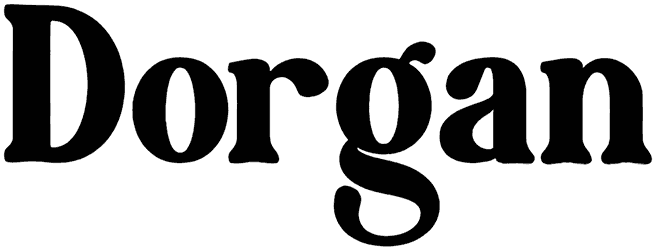
Dorgan Font
Dorgan font has that old fantasy display mood that makes a headline feel like it belongs on a map, a tavern sign, or the cover of a story where nobody gets out without a quest. Its decorative serif shapes carry a medieval personality, but they still keep enough structure to make the words readable and useful.
Use it for RPG game titles, fantasy book covers, brewery labels, historic posters, escape room branding, or festival badges that need a crafted legendary touch. Pair this retro font with parchment textures, dark wood, engraved borders, or muted gold, and your layout starts feeling properly mythical.